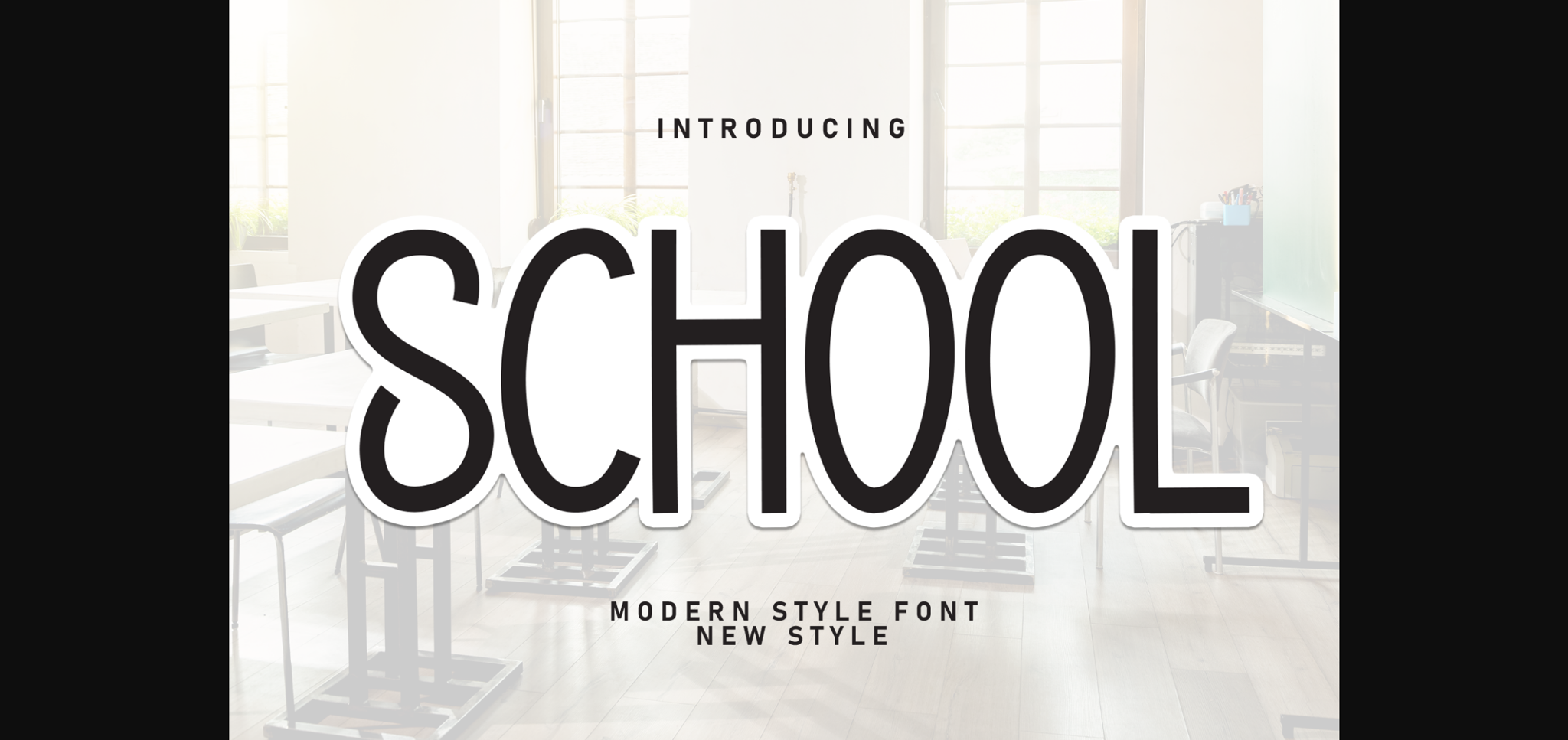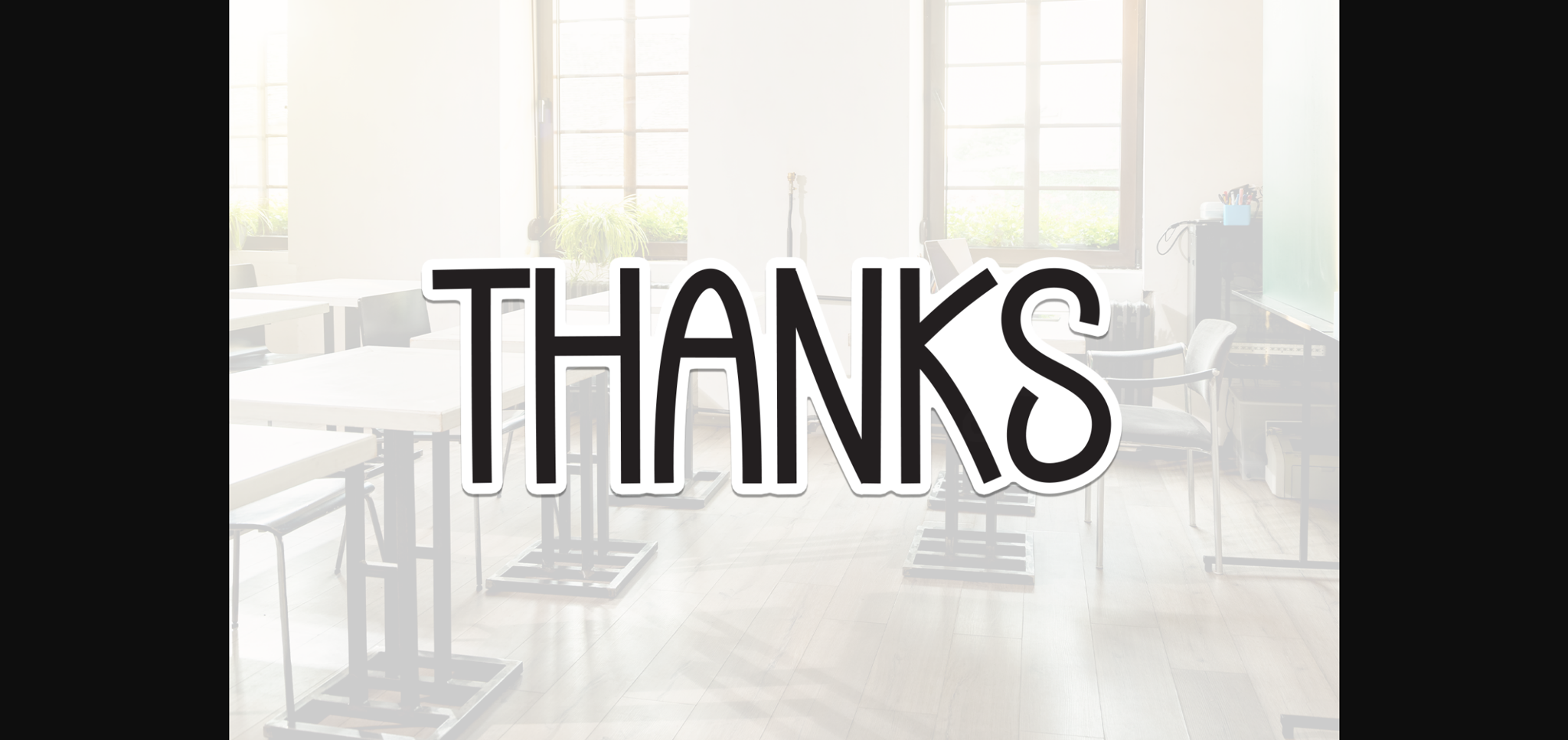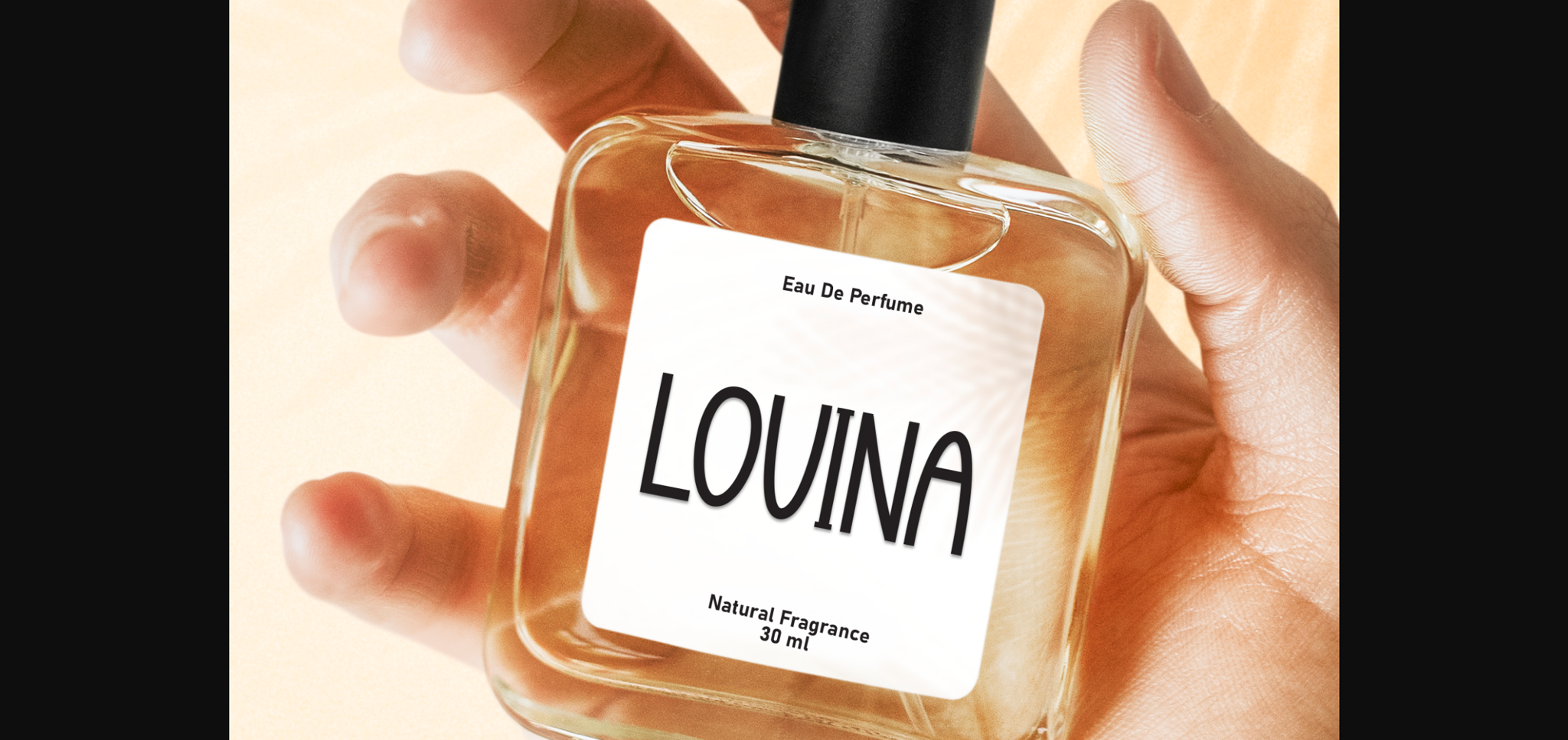
About School Font
Introducing a charming sans-serif font, offering an inviting and delightful aesthetic. Perfectly suited for crafting enchanting wedding invitations, captivating cards, or any design project that could benefit from an engaging, playful touch. This font combines a candied simplicity with a friendly vibe, conditioning your designs with soulful beauty and eccentric fun.